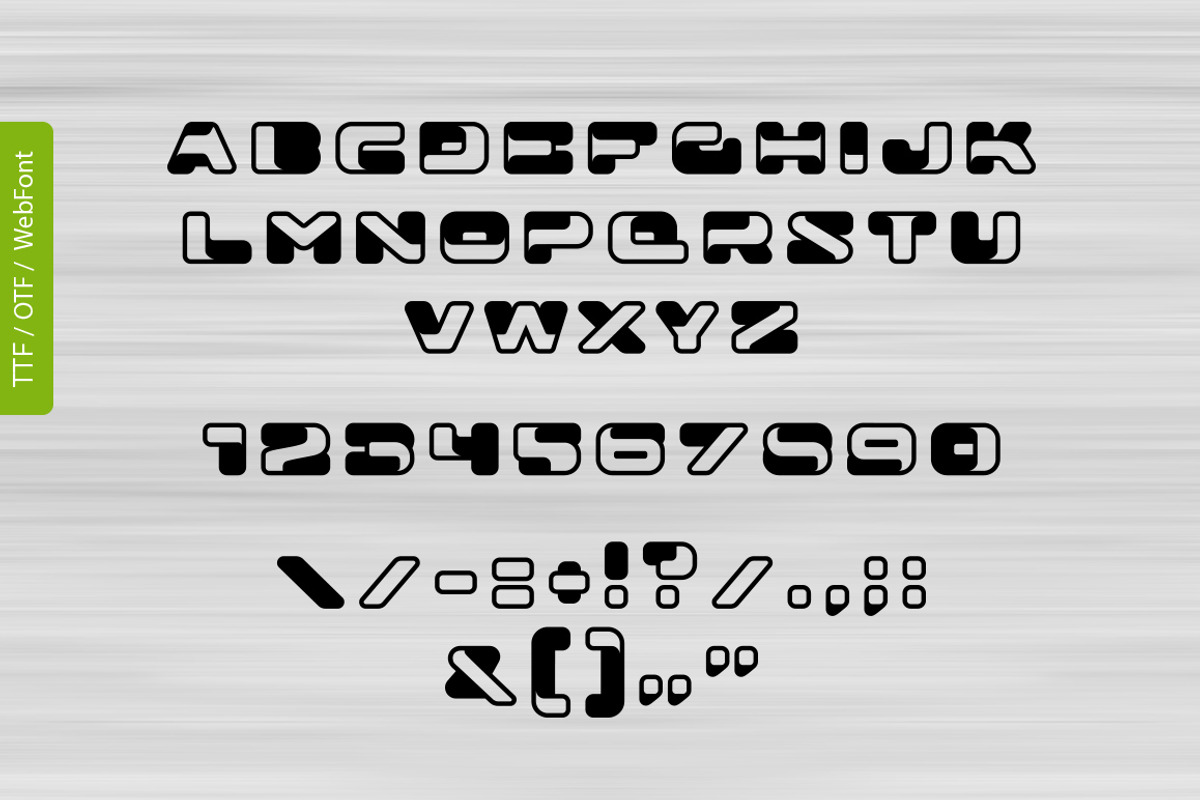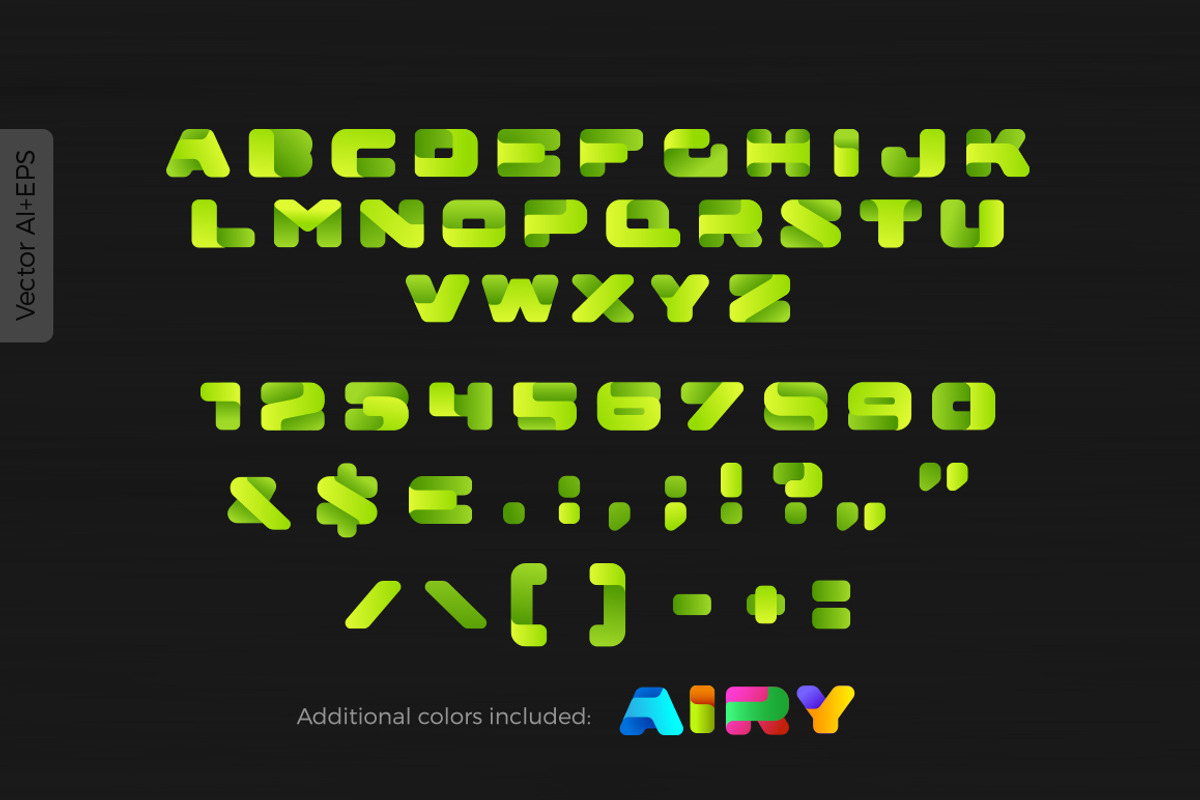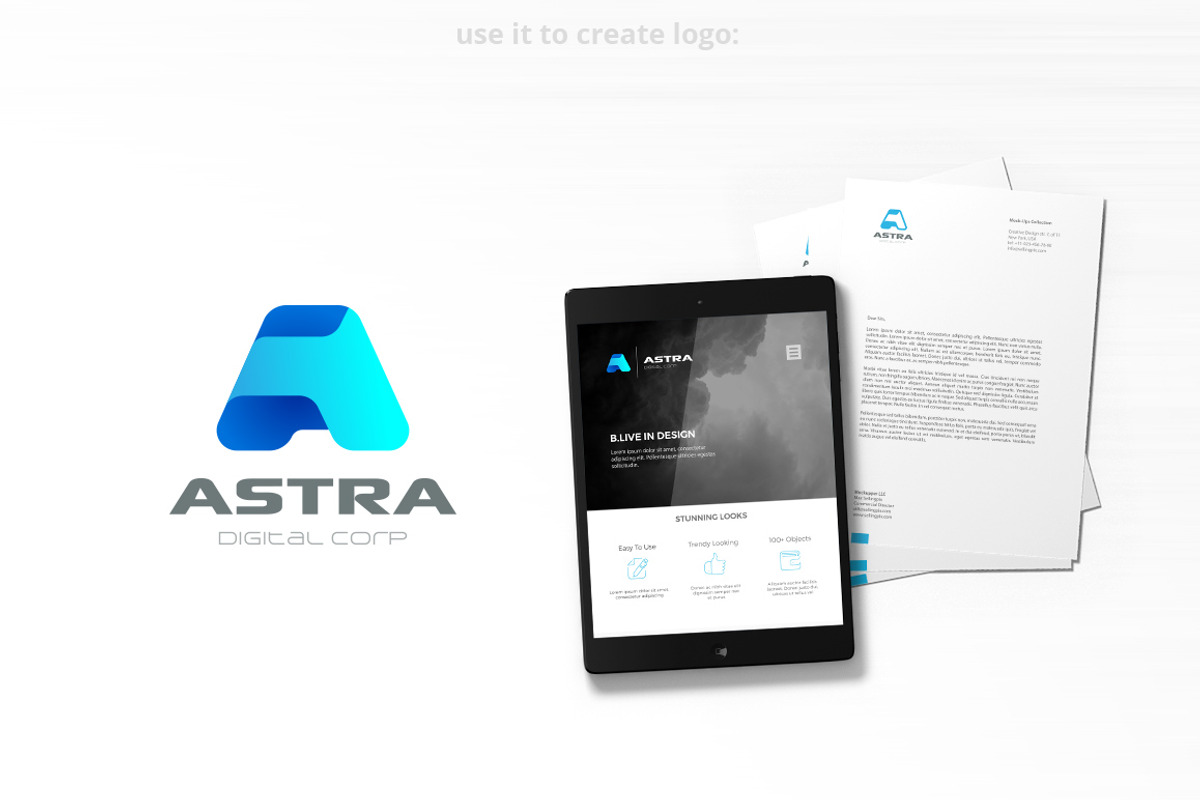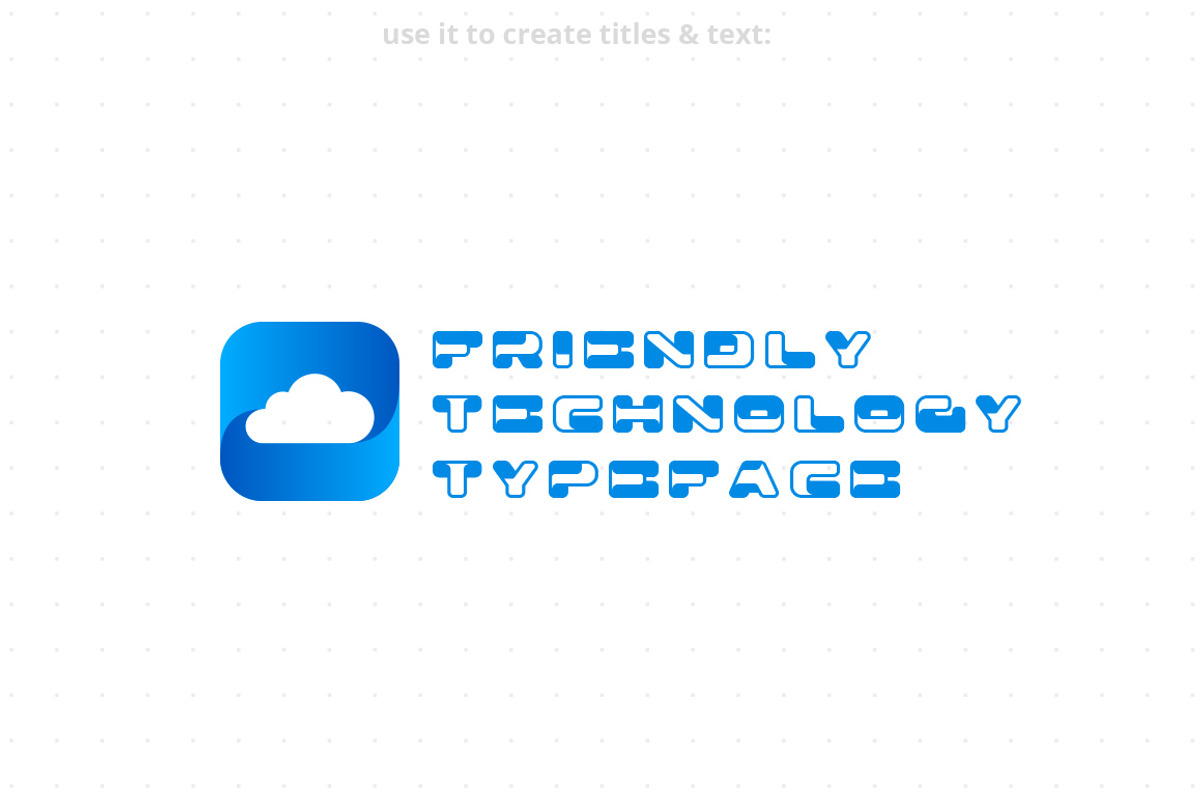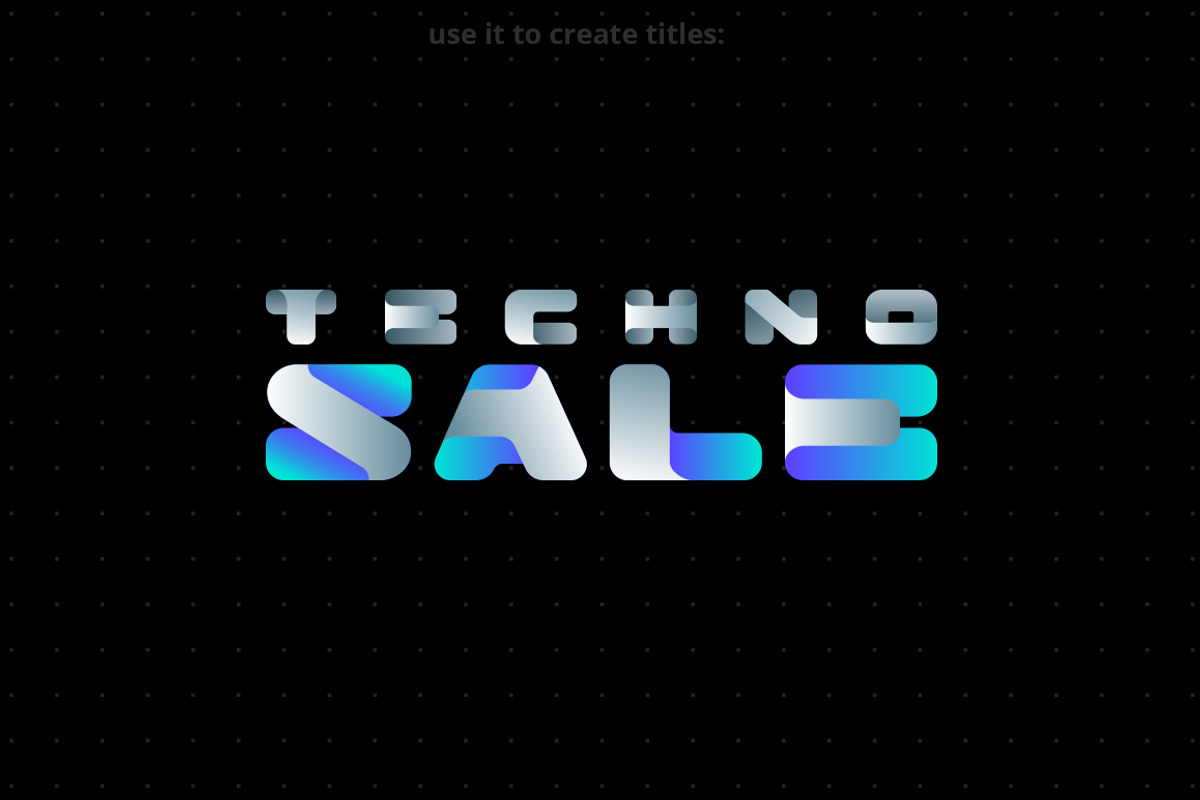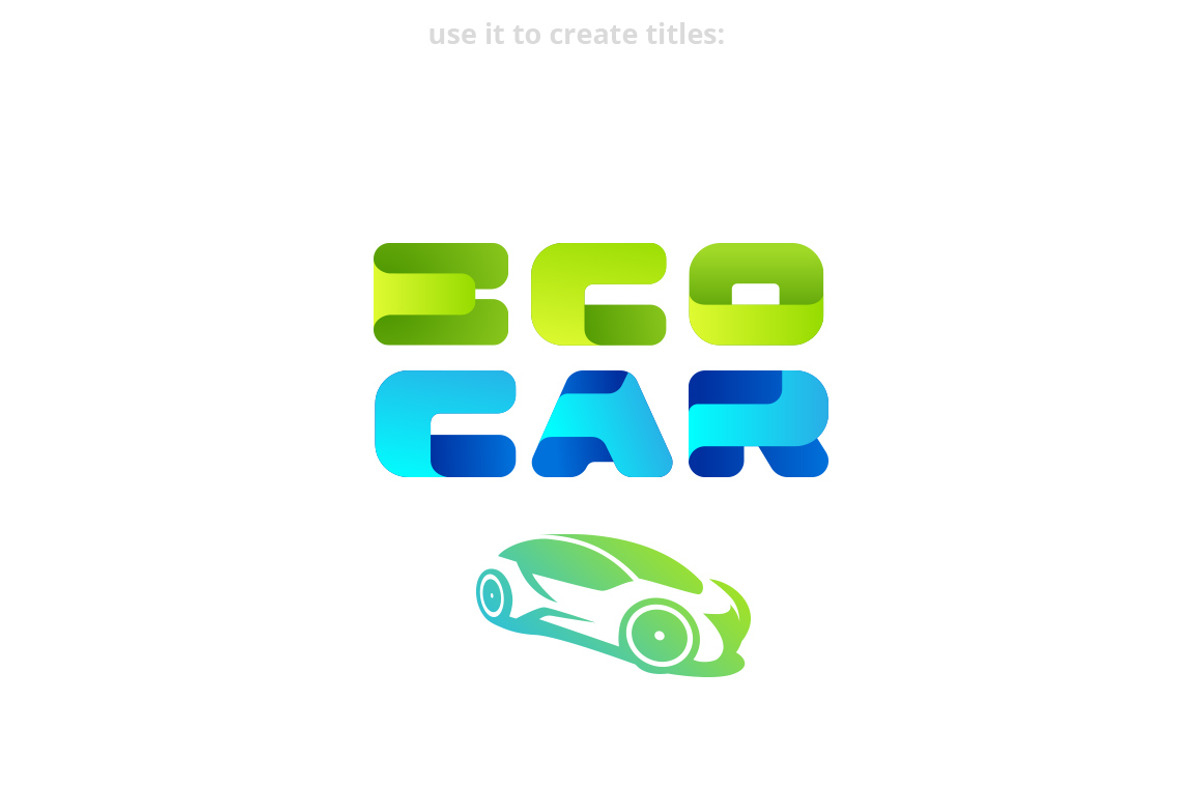
Airy Box font
Airy Box font by Sentavio is a font selected for branding, posters, packaging, typography.
Why Airy Box font is worth a look
Airy Box font by Sentavio fits naturally into Branding, posters, packaging, typography.